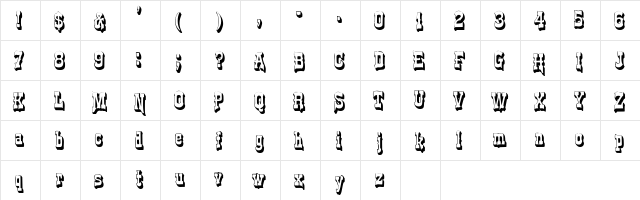
SilveradoDisplaySSK Regular
Design Context for SilveradoDisplaySSK Typeface
SilveradoDisplaySSK is built around its visual character rather than neutral utility — its distinctive forms are designed to make an impression at display sizes.
Font Pairing: Pair with a clean neutral sans-serif for body copy to let SilveradoDisplaySSK's character lead without overwhelming the composition.
Pro Tip: Use SilveradoDisplaySSK exclusively at display sizes — it was designed to be seen, not read at length. Let a neutral companion handle body copy.